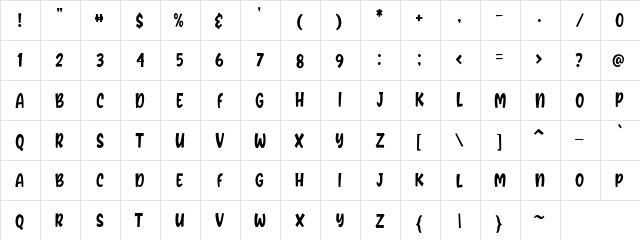
Biber Bread Regular
| Foundry | Blankids Studio |
| Designer | Bangkit Tri Setiadi |
Design Context for Biber Bread Typeface
Biber Bread is a composed and adaptable typeface that performs quietly and consistently across a wide range of design contexts.